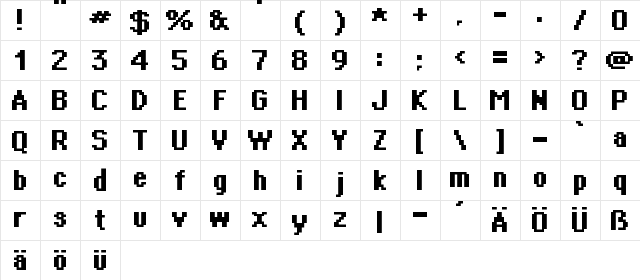
Supertext 02 Bold
Design Context for Supertext 02 Typeface
Supertext 02 takes a measured approach to typography — its balanced proportions and neutral character make it a reliable workhorse for both digital and print work. The heavy weight commands attention and anchors typographic hierarchies.